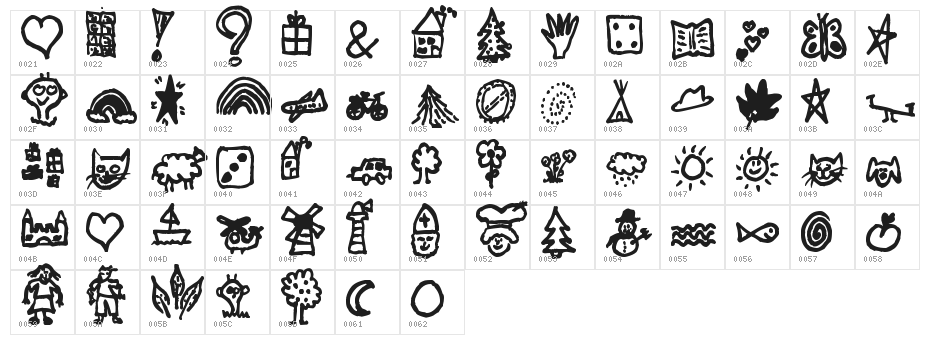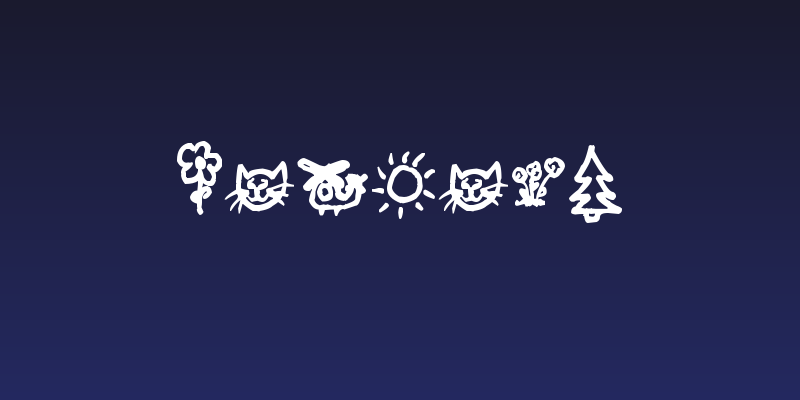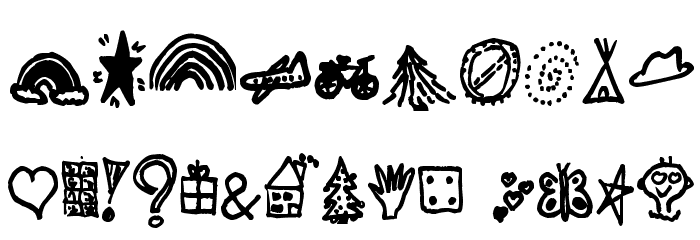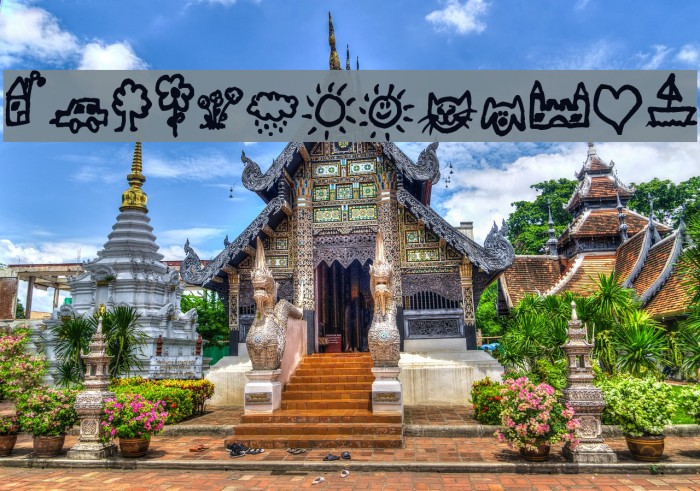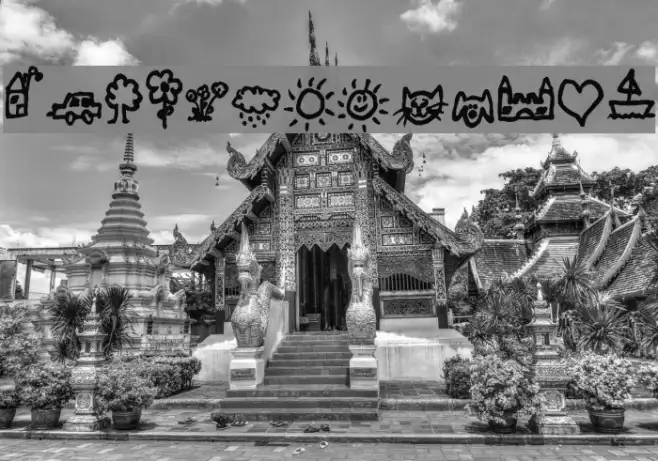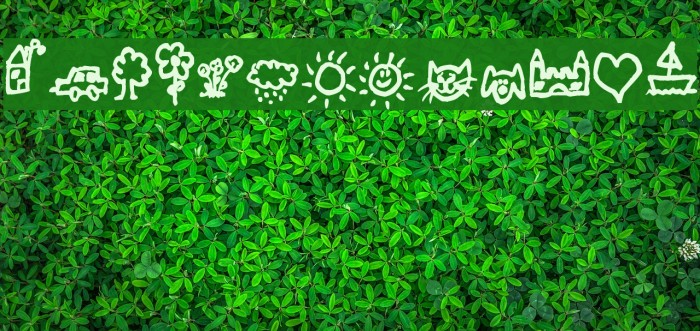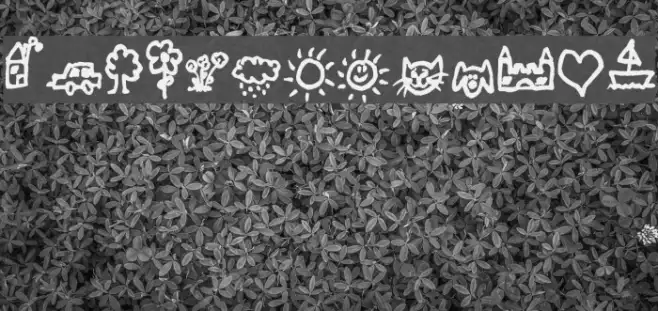
Dingies Font
Dingies Description
This is a whimsical and playful dingbat font featuring a variety of hand-drawn illustrations. The characters include a mix of everyday objects, nature elements, and abstract symbols, each with a unique and quirky style. The illustrations are bold and filled, with a consistent line weight that gives them a cohesive appearance. The font is perfect for adding a fun and creative touch to any project, with its diverse range of icons that can be used to convey different themes and ideas. The style is reminiscent of doodles or sketches, making it ideal for informal and lighthearted designs.
| Use Case | Logos, Decorative elements, Creative projects |
| Proposed Projects | Ideal for children's books, greeting cards, scrapbooking, and creative design projects. |